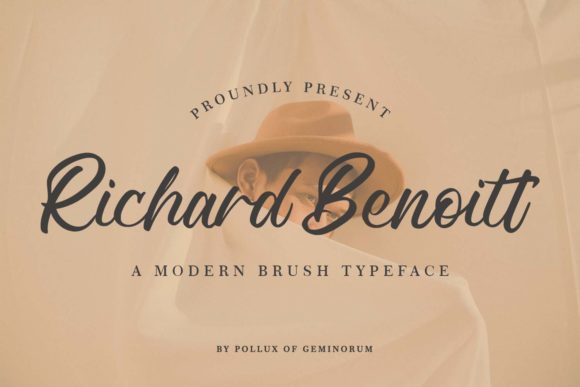
Adorn your designs with the exquisite charm of Richard Benoitt, a script font family that exudes elegance and sophistication. Inspired by the timeless beauty of handwritten calligraphy, this font is a masterpiece crafted by the talented Pollux of Geminorum. Richard Benoitt effortlessly captures the essence of handwritten notes, adding a personal touch to your creative projects.
Immerse yourself in the world of Richard Benoitt, where each letter dances across the page with grace and fluidity. Its varying baseline and smooth lines create a sense of movement and energy, while the gorgeous glyphs and stunning alternates add depth and dimension to your designs. Whether you're crafting wedding invitations, thank-you cards, inspirational quotes, or eye-catching logos, Richard Benoitt is the perfect choice to elevate your projects to new heights.
With Richard Benoitt, you'll discover a font that seamlessly blends charm and elegance, adding a touch of sophistication to every design. Its versatility knows no bounds, making it an ideal choice for a wide range of projects, from personal correspondence to professional branding. Experience the magic of Richard Benoitt and let your creativity soar.
Unleash the boundless potential of Richard Benoitt and transform your designs into works of art. Its PUA encoding ensures effortless access to all glyphs and swashes, empowering you to create stunning compositions with ease. Whether you're a seasoned designer or just starting your creative journey, Richard Benoitt is the perfect font to elevate your projects and leave a lasting impression.